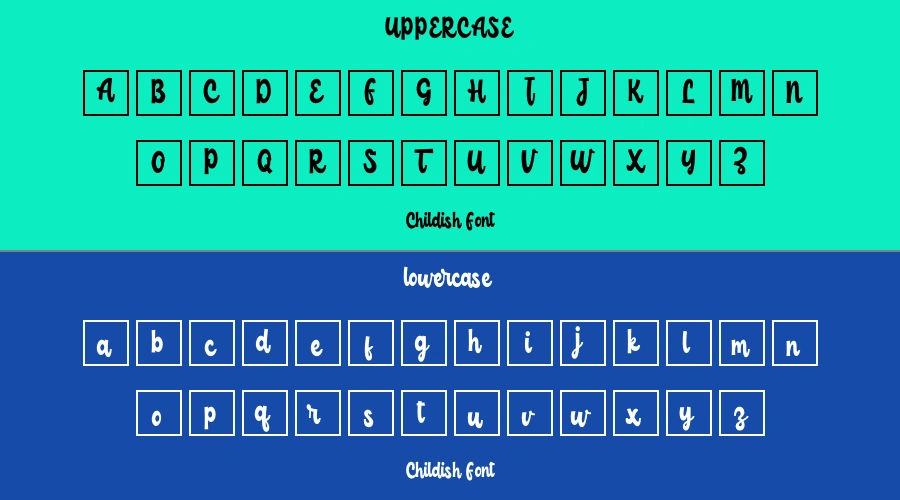
About Childish Font
Childish Font stands out for its distinctive combination of creative flair and versatility. Ideal for technical manuals, it provides the tradition and technical mastery that professional projects demand. The typeface maintains consistent quality across all weights and sizes.
Key features include refined sharp edges and practical terminal forms, enhancing typographic expression. In heritage publications applications, Childish Font demonstrates exceptional detail retention. The bowl shape and brand personality contribute to its distinctive character and professional appeal.